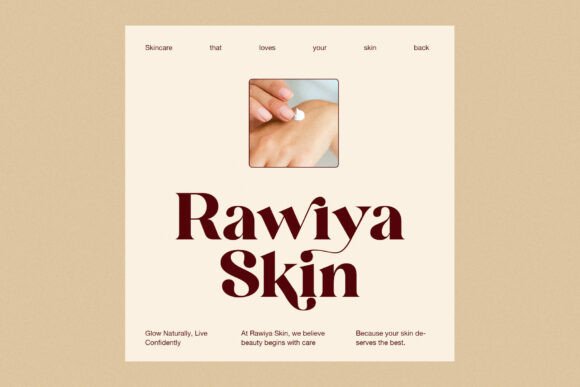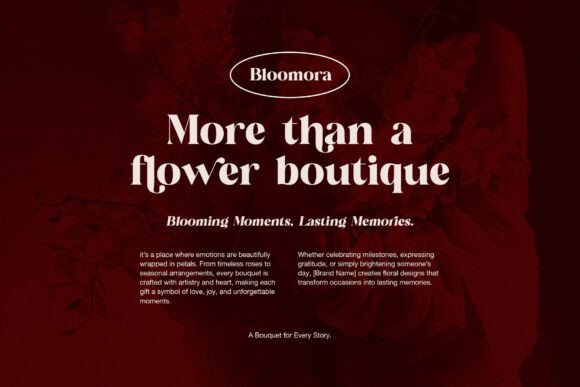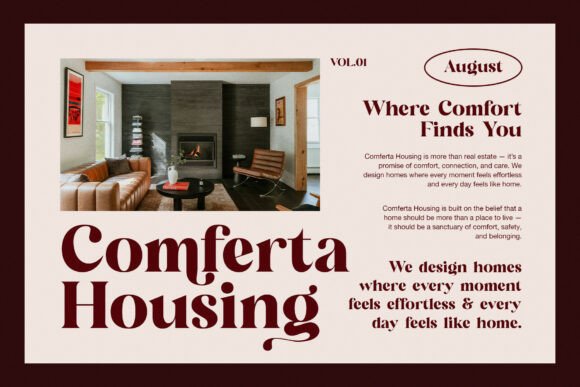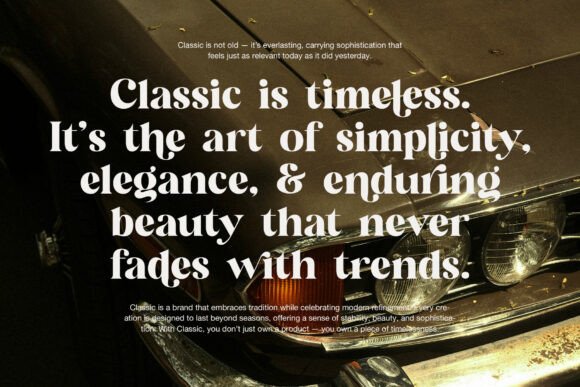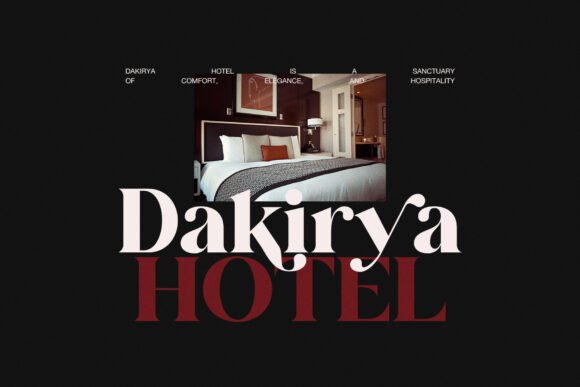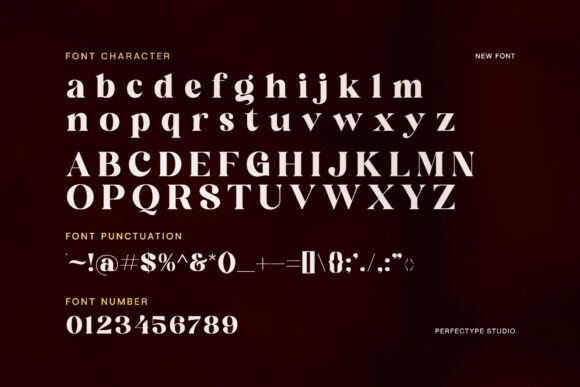
Cringe Elegant Serif: Elevate Your Designs with Timeless Sophistication
In the world of typography, fonts play a pivotal role in conveying the essence of a design. Among the myriad of fonts available, Cringe Elegant Serif stands out as a beacon of sophistication and modernity. This stylish serif font seamlessly blends contemporary design elements with classic elegance, making it an ideal choice for projects that demand a touch of refinement.
Cringe Elegant Serif is characterized by its sharp serifs and refined letter shapes, which collectively create a bold yet graceful appearance. The font’s design strikes a perfect balance between strong structure and delicate details, rendering it suitable for both display and body text. The clear, crisp lines and moderate contrast between thick and thin strokes ensure excellent readability, while adding a unique flair to every character.
One of the notable features of Cringe Elegant Serif is its slightly condensed letterforms. This design choice allows the font to save space without compromising on clarity, making it an excellent option for a variety of applications, including branding, editorial layouts, packaging, and invitations.
The versatility of Cringe Elegant Serif is one of its most compelling attributes. Its modern yet timeless feel makes it an excellent choice for designers looking to create layered, eye-catching compositions. The font pairs well with both minimalist and decorative fonts, offering endless possibilities for creative expression.
Whether you’re working on a luxury brand’s visual identity, a high-end editorial project, or a sophisticated packaging design, Cringe Elegant Serif can elevate your work to new heights. Its ability to convey elegance and sophistication makes it an invaluable asset for designers seeking to create a lasting impression.
Applications and Use Cases
Cringe Elegant Serif’s range of applications is vast and varied. Some of the most notable use cases include:
• Branding: Create a lasting impression with a font that exudes luxury and sophistication.
• Editorial Layouts: Add a touch of elegance to magazines, newspapers, and digital publications.
• Packaging: Elevate product packaging with a font that conveys refinement and quality.
• Invitations: Make a statement with elegant and sophisticated event invitations.
Why Choose Cringe Elegant Serif?
In a world where typography plays a crucial role in design, Cringe Elegant Serif offers a unique combination of modernity and classic elegance. Its versatility, readability, and sophisticated appearance make it an excellent choice for designers and crafters seeking to elevate their work.
By choosing Cringe Elegant Serif, you can:
• Enhance your designs with a touch of sophistication.
• Convey luxury and refinement through typography.
• Experiment with a wide range of design possibilities.
Font Name Cringe Font
Author Perfectype
Cringe Elegant Serif is a stylish serif font that offers a perfect blend of modern design and classic elegance. Its versatility, readability, and sophisticated appearance make it an invaluable asset for designers and crafters. Whether you’re working on a branding project, editorial layout, packaging design, or invitation, Cringe Elegant Serif is sure to elevate your work to new heights.
Discover the power of Cringe Elegant Serif and unlock a world of design possibilities. Experience the elegance and sophistication that this font has to offer, and take your designs to the next level.